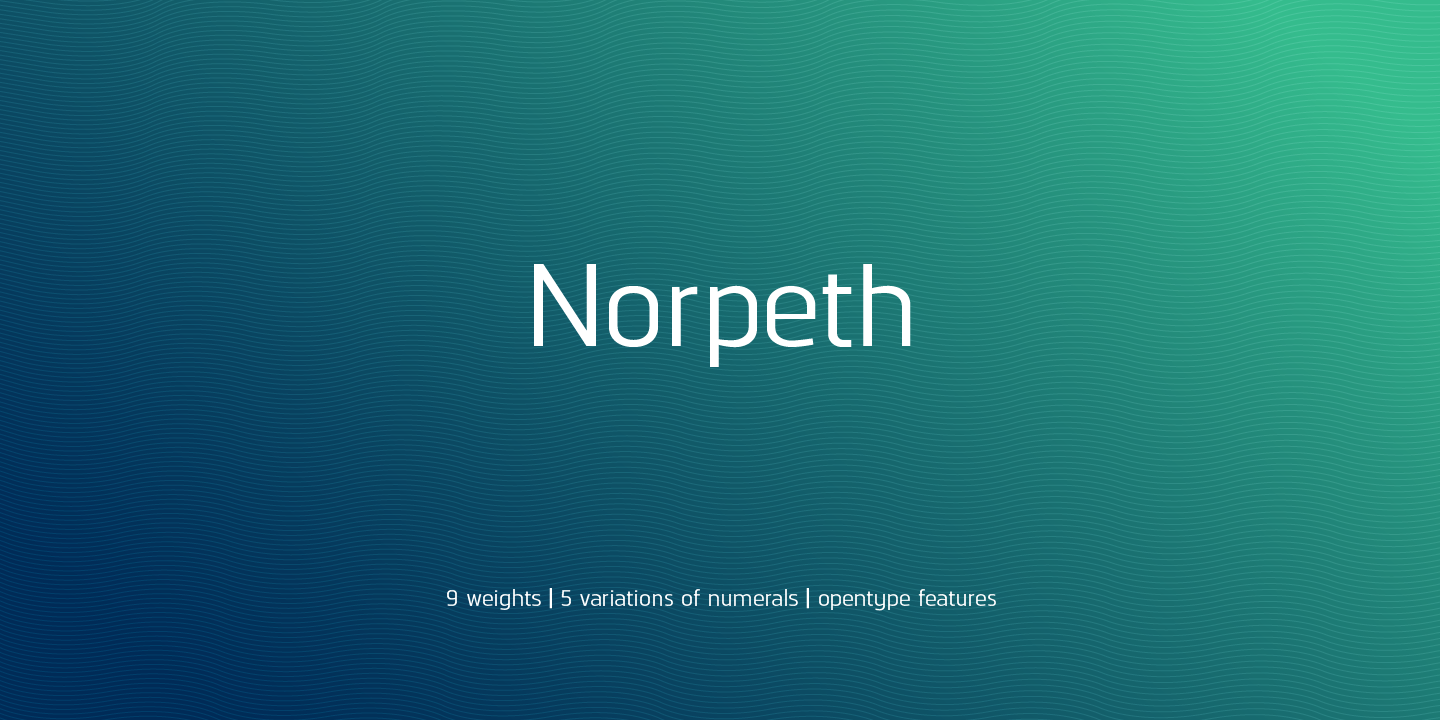
Norpeth Font is perfect for Nordic-inspired branding, Scandinavian design projects, minimalist publications, contemporary corporate identities, clean editorial layouts, modern architectural signage, tech startup logos, and sophisticated presentations that require crisp, geometric typography with Northern European sensibility.
This Norpeth Font is exciting because it captures the essence of Scandinavian design philosophy with clean, purposeful letterforms that embody minimalist aesthetics and functional beauty, featuring precise geometric construction that delivers exceptional clarity while maintaining the distinctive Nordic approach to typography and visual communication.
The Norpeth Font family includes multiple weights with modern geometric styling, complete character sets with uppercase and lowercase letters, contemporary numerals, clean punctuation, and extensive language support that provide comprehensive typography solutions for international design projects requiring sophisticated Nordic-inspired visual identity.
Ideal for creating contemporary brand communications and modern editorial design, Norpeth Font Free Download delivers the refined Nordic typography that transforms text into elegant statements of simplicity and function. This distinctive typeface embodies the timeless principles of Scandinavian design, making it essential for projects requiring clean aesthetics, minimalist appeal, and sophisticated typography that conveys quality through restraint and precision.